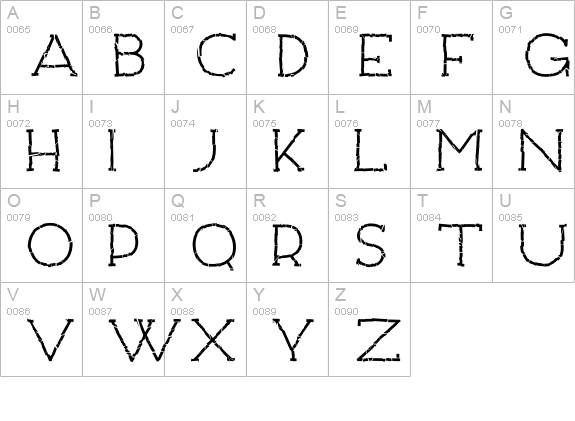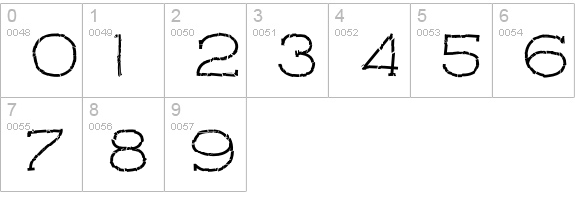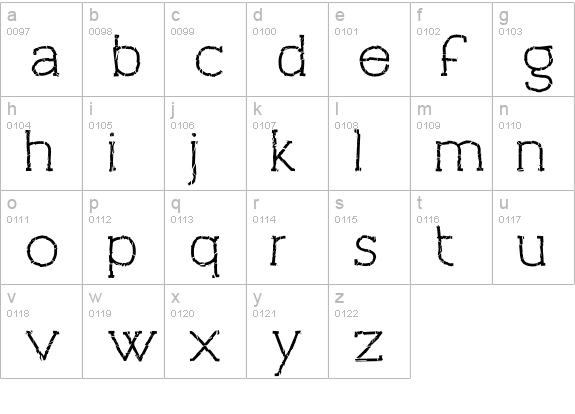
Archivio Slab Crashed Font Details
Archivio Slab Crashed font is a unique and eye-catching typeface that exudes a sense of edgy sophistication. With its rugged and distressed appearance, this font is perfect for projects that require a touch of urban flair or a grungy aesthetic. The bold and chunky letterforms make a powerful statement, while the slab serif style adds a touch of elegance. What sets Archivio Slab Crashed font apart is its free-spirited and rebellious vibe, making it ideal for designs that seek to break the mold and challenge conventions. Whether you're working on a poster, album cover, or branding project, this font is sure to make a bold impact. Best of all, Archivio Slab Crashed font is freely available to download at FontsMarket.com. So go ahead and unleash your creativity with this striking and versatile typeface!